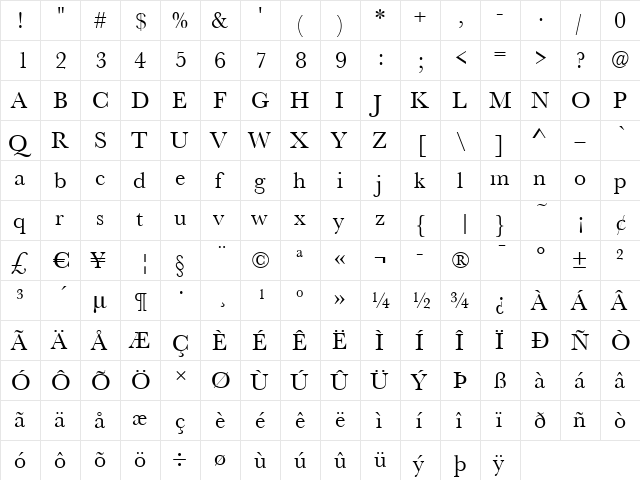
RoxanneBecker Regular
Design Context for RoxanneBecker Typeface
RoxanneBecker is a composed and adaptable typeface that performs quietly and consistently across a wide range of design contexts.